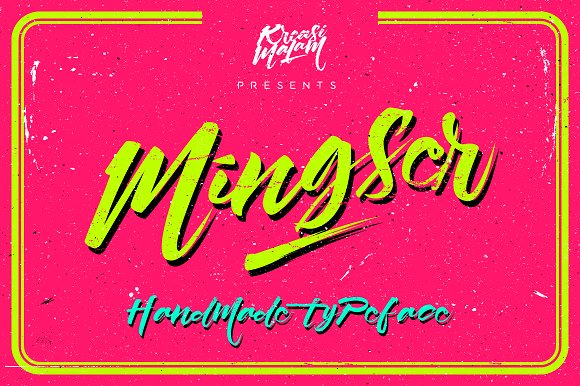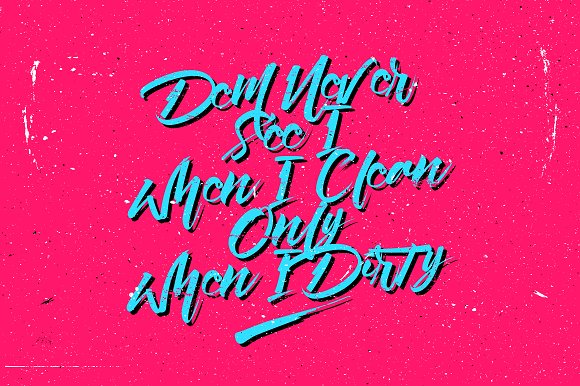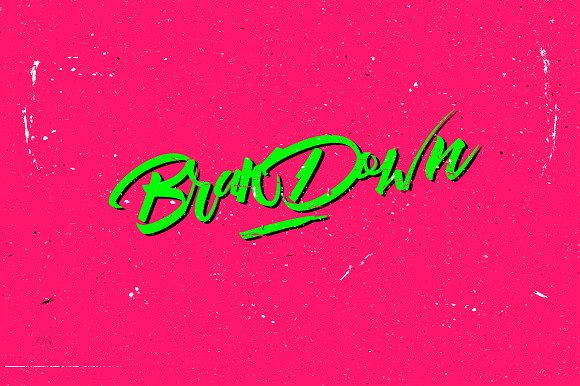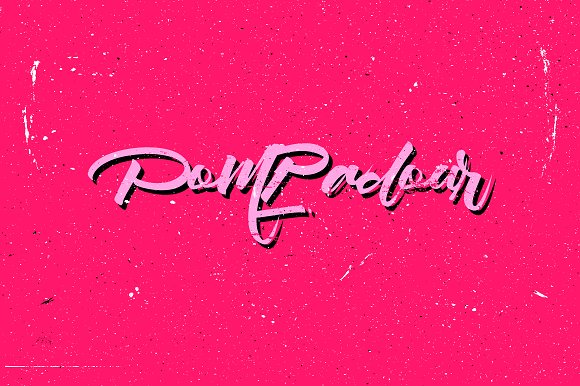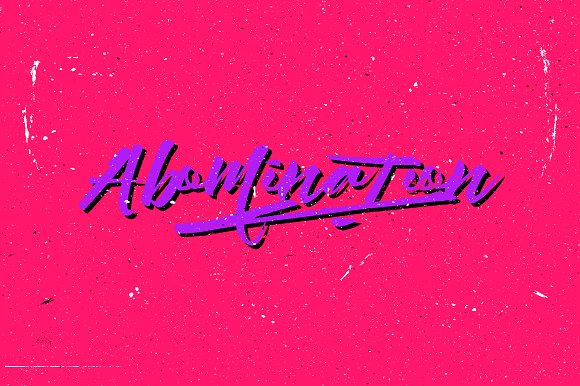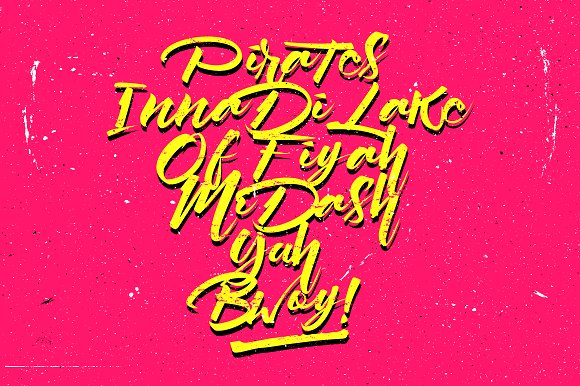
Introduction to Mingser Font
Have you ever been in the middle of a creative project, and suddenly, you need that perfect font to bring everything together? The perfect font can elevate a design from good to great, and that’s exactly where the Mingser Font comes in. This fun, handmade calligraphy font is designed to add a quick and playful touch to your projects.
As a designer, you know how valuable a high-quality design resource like the Mingser Font can be. With its unique, handwritten style, it’s perfect for adding a personal touch to your work. Plus, with a transparent background, you can easily layer it over other design elements to create a visually appealing composition.
Mingser Font
- Unique, modern design with a transparent background, perfect for creative projects
- Supports a wide range of languages, including Latin, Cyrillic, and Greek scripts
- Includes a comprehensive set of glyphs, with over 200 characters and symbols for added versatility
Honest Review: Mingser Font
As a designer, I’m always on the lookout for high-quality design resources to elevate my creative projects. Recently, I stumbled upon the Mingser Font, and I’m excited to share my honest review with you.
- ✨ Beautiful, elegant script style that adds a touch of sophistication to any design.
- ✨ High-quality font with clear, readable characters.
- ⚠️ The font only comes in a few weights, which may limit its versatility in certain projects.
- ⚠️ Some users may find the font’s transparency feature (which allows for a transparent background) a bit finicky to work with.
Overall, I’m impressed with the Mingser Font’s design and quality. It’s a great addition to any designer’s toolkit, especially for creative projects that require a touch of elegance. While it may have some limitations, I believe it’s a valuable resource that’s definitely worth exploring.
Mingser Font
The Mingser Font is a versatile and stylish design resource that can elevate your creative project to the next level. With its high-quality and modern design, this font is perfect for various applications, from branding to digital media.
Using the Mingser Font
With the Mingser Font installed, you can now use it in your projects with a transparent background, allowing for a seamless integration with your design. Experiment with different font sizes, colors, and styles to get the most out of this design resource.
Here are some tips for getting the most out of the Mingser Font:
- Use the font in conjunction with a bold and bright color scheme for maximum impact.
- Combine the Mingser Font with other high-quality design resources for a cohesive look.
The Mingser Font is perfect for:
- Business cards and stationery
- Digital media and social media graphics
- Print materials and brochures
Alternatives to Mingser Font